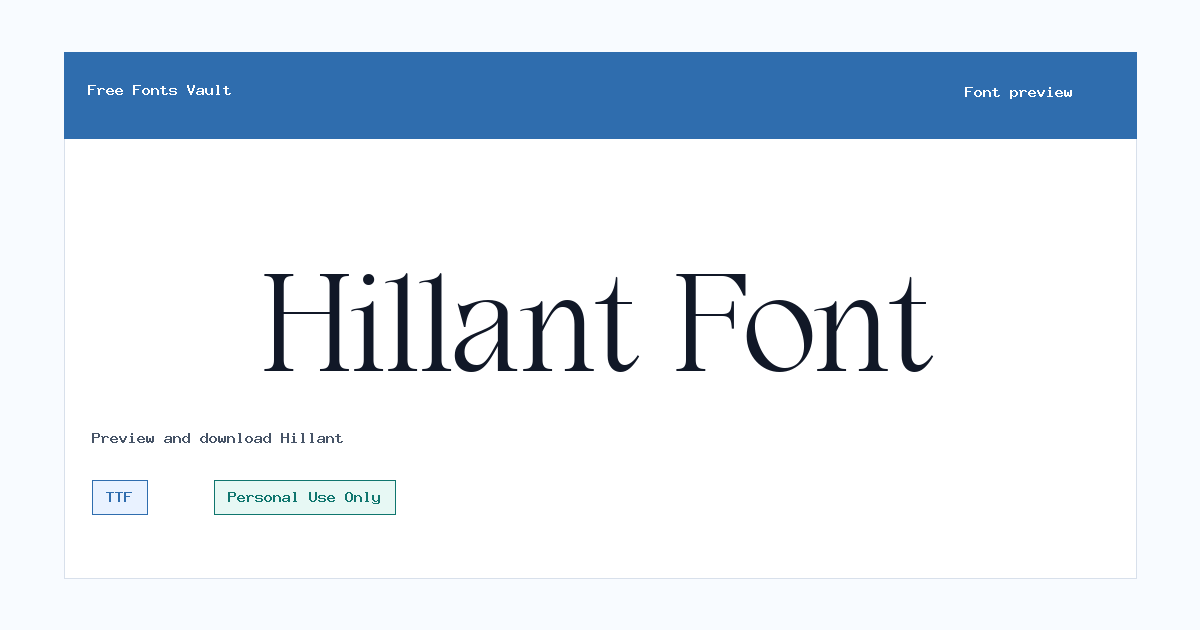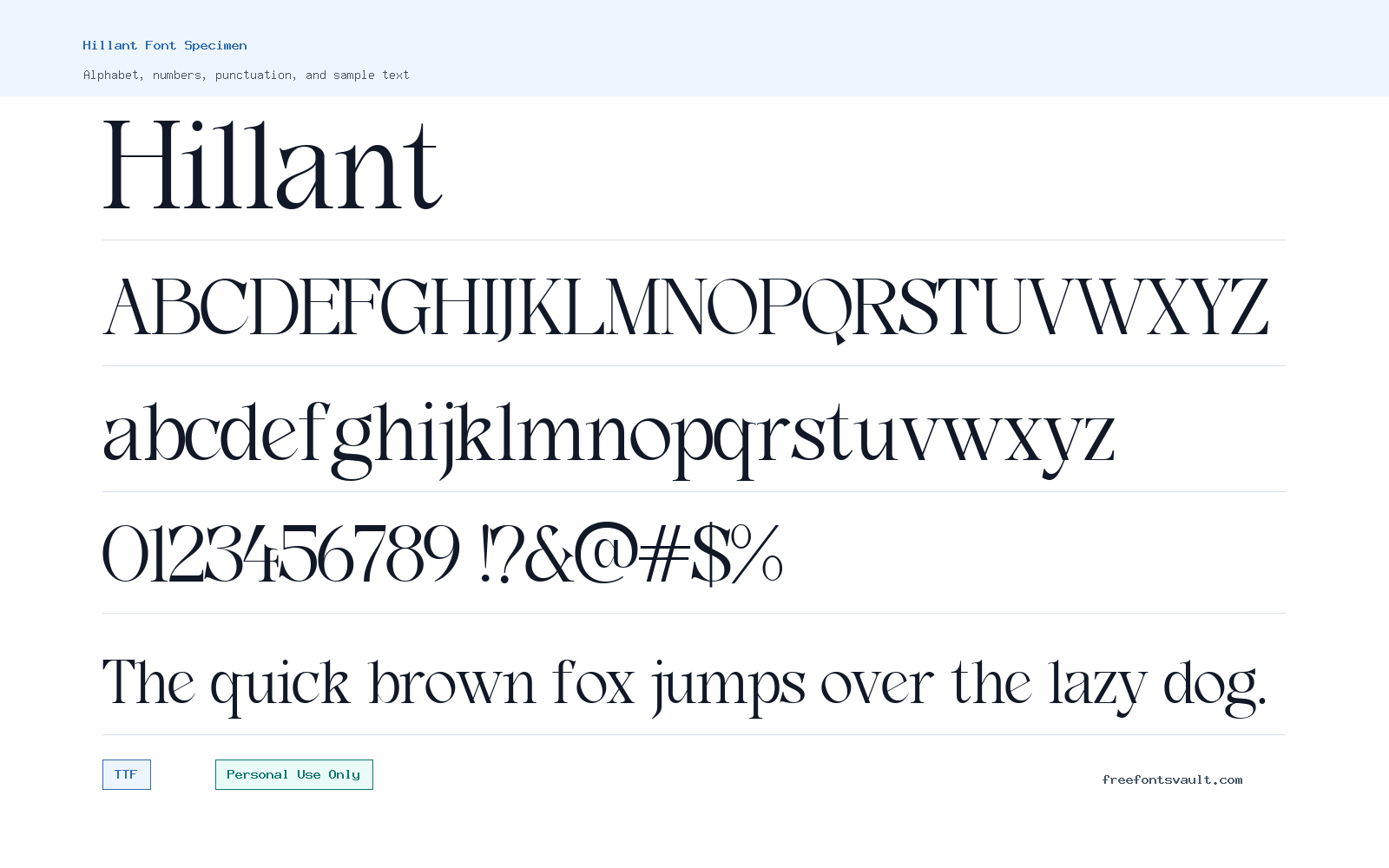
Hillant
Hillant font preview showing the family name
Hillant Font
Hillant font specimen showing alphabet, numbers, and sample text
Hillant font.
Hillant is a serif display font with a polished, decorative feel suited to short text where the lettering needs to carry the design.
About Hillant Font
Hillant works best when it is treated as a headline or display face rather than a long-reading text font. Its serif structure gives it a classic base, while the styling is better suited to names, titles, invitations, packaging mockups, logo drafts, and social graphics. If you are testing it in the preview tool, start with a brand name, a short quote, or a two-word title. That will show the shape and spacing more clearly than a full paragraph.
• Serif display look for short titles and decorative text
• Best tested at larger sizes where the letter shapes are easy to see
• Logo concepts and brand-name drafts
• Invitation headings and event titles
• Packaging mockups and label-style text
• Social media graphics with short wording
• Posters, quote cards, and display layouts
Hillant is credited to Hasnull Bolikah and Dikas Studio.
What kind of projects is Hillant good for?
Hillant is most useful for short display text such as titles, logo drafts, invitations, packaging mockups, and social graphics. It is not the best choice for long paragraphs.
Who designed Hillant?
Hillant is credited to Hasnull Bolikah, with Dikas Studio listed as the foundry.
How should I pair Hillant with another font?
Use a simple supporting font so the design does not become too busy. A clean sans serif is a safe choice for body text, captions, and details.